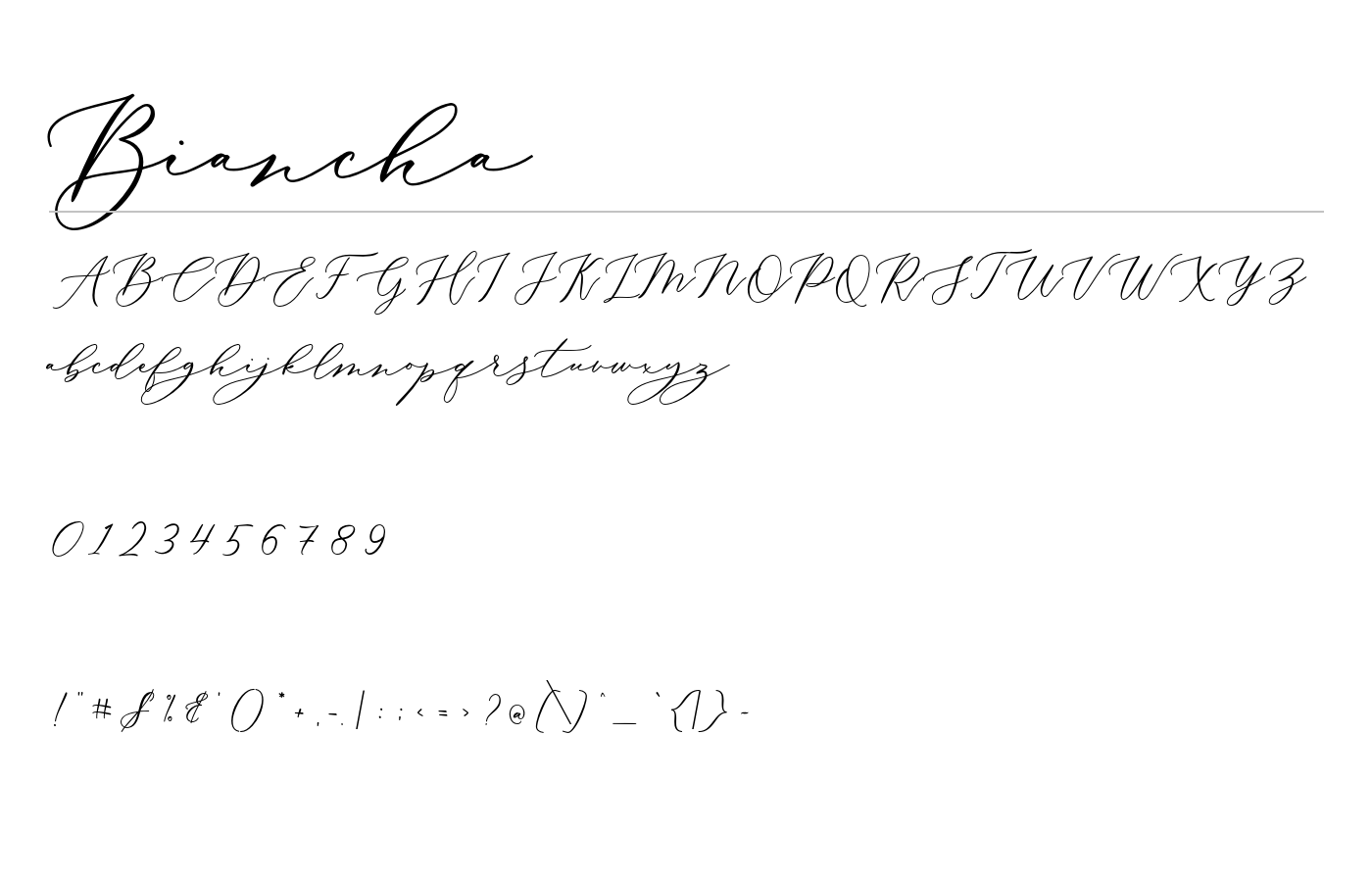
Biancha is a delicate script font with elegant, flowing strokes that evoke a handwritten calligraphic style. Its thin weight and refined curves make it perfect for sophisticated branding, wedding invitations, and luxury packaging where a graceful, personal touch is desired. This font’s airy, stylish letterforms bring a sense of romance and artistry to any design needing a refined yet approachable aesthetic.
Biancha Font
About Biancha Font